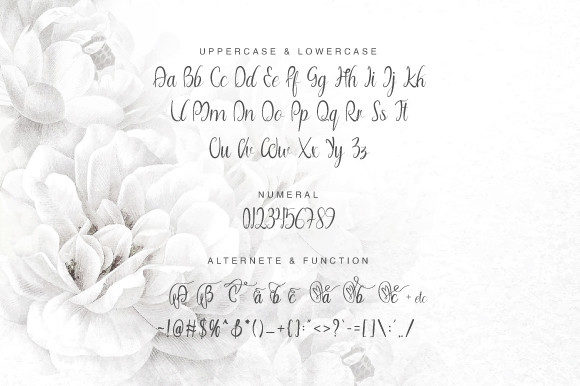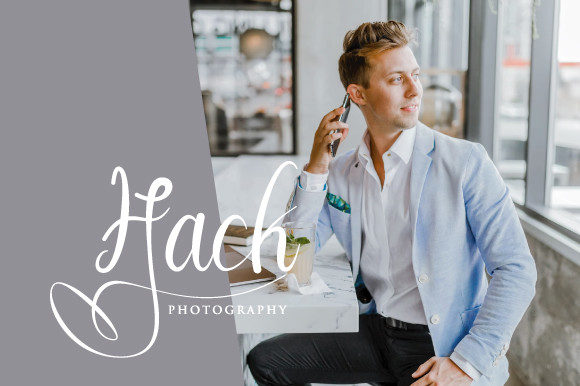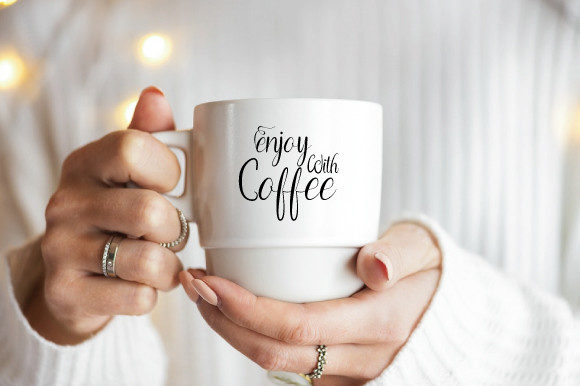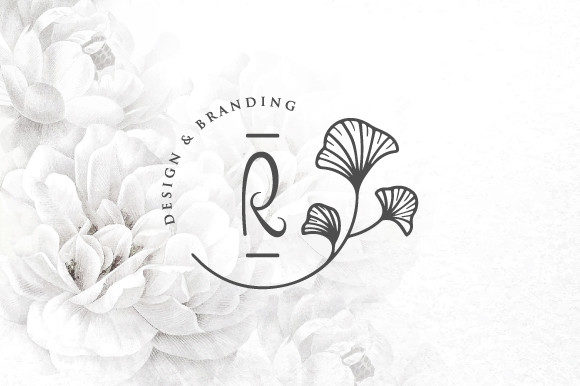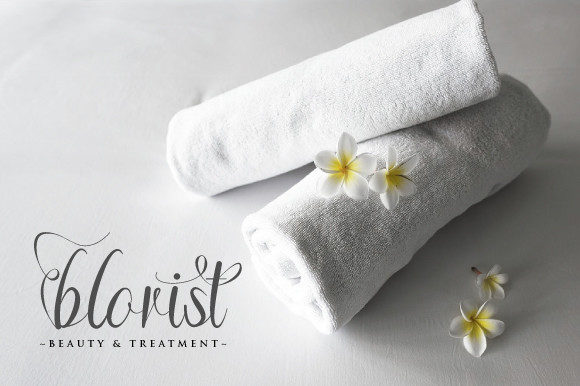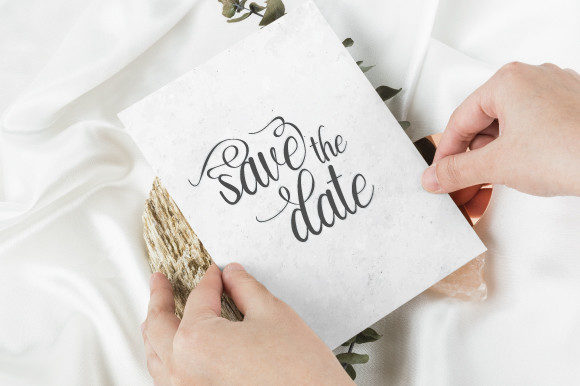
Introduction to Satimya Font
As a designer, there’s nothing quite like the thrill of bringing a creative project to life. You spend hours pouring over your design, tweaking every detail, and finally, the moment of truth arrives – you’re about to add the finishing touches. But, sometimes, the perfect font can be the missing piece that elevates your design from good to great. That’s where the Satimya Font comes in – a lovely and delicate script font that exudes elegance and class.
Whether you’re working on a wedding invitation, a branding project, or simply want to add a touch of sophistication to your design, the Satimya Font is a valuable resource that’s sure to impress. With its high-quality design and transparent background, this font is perfect for designers who want to create beautiful and refreshing looks for their clients. And, the best part? It’s PUA encoded, making it easy to access all glyphs and swashes with ease.
Key Features of Satimya Font
- Unique, hand-drawn design inspired by traditional calligraphy, making it an excellent resource for creative projects.
- High-quality design with intricate details and smooth lines, perfect for adding a touch of elegance to any design project.
- Includes a wide range of characters, including uppercase and lowercase letters, numbers, and punctuation marks, making it a versatile design resource.
Honest Review: Satimya Font
I recently stumbled upon the Satimya Font and I must say, it’s a game-changer for any design project. As a designer, I’m always on the lookout for high-quality fonts that can elevate my work and help me achieve my creative vision.
Here are some things that work well for the Satimya Font:
- ✨ Unique design: The Satimya Font has a distinctive and quirky design that sets it apart from more traditional fonts.
- ✨ High quality: The font is available in various weights and styles, making it perfect for a wide range of creative projects.
- ⚠️ Limited customization options: While the font itself is beautiful, the options for customizing it are limited.
- ⚠️ Not suitable for all projects: The Satimya Font may not be the best choice for projects that require a more formal or traditional look.
Overall, I’m impressed with the Satimya Font and I would definitely recommend it to designers looking for a unique and high-quality font for their creative project. With a transparent background and high-quality design, it’s an excellent resource for any design project.
Tips for Getting the Most Out of Satimya Font
To maximize the potential of the Satimya Font, experiment with different font sizes, styles, and colors. Combine it with other design resources to create a unique and eye-catching visual identity. The Satimya Font is ideal for a wide range of creative projects, from branding to publishing.
The Satimya Font is suitable for various applications, including logo design, infographics, and editorial content. Its versatility and high quality make it an excellent choice for designers and artists seeking a unique and professional look.